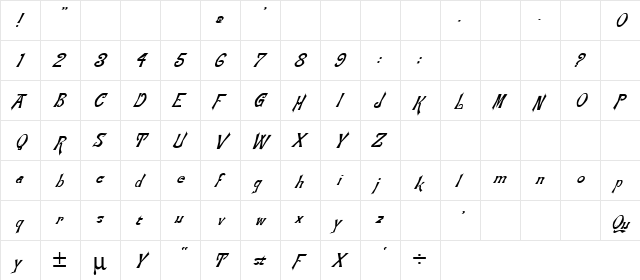
Flemish Italic
Design Context for Flemish Typeface
Flemish takes a measured approach to typography — its balanced proportions and neutral character make it a reliable workhorse for both digital and print work. The slanted form adds forward momentum and visual energy.
Pro Tip: Use Flemish for emphasis, pull quotes, and subheadings where its slanted energy can add rhythm to the layout.